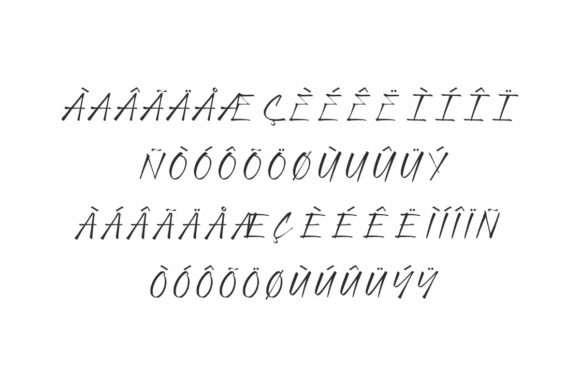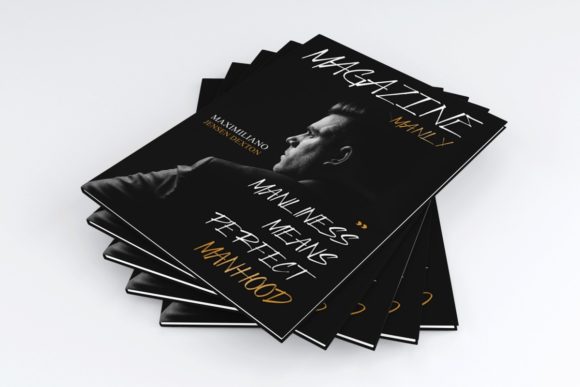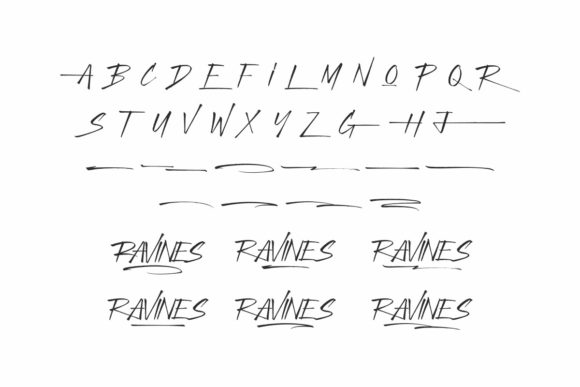
Introduction to Ravines Font
Have you ever stared at a blank design canvas, trying to come up with the perfect font to make your creative project pop? You search for hours, scrolling through design resources, and finally, you stumble upon it – the perfect font to elevate your design to the next level.
That’s exactly what happened when I discovered the Ravines Font. This unique, brushed display font is like a breath of fresh air for designers, offering a rough edge effect that’s sure to grab attention. Whether you’re working on a high-quality advertisement, packaging, or product promotion, Ravines Font is the perfect design tool to make your project shine.
With its PUA encoded glyphs and swashes, accessing all the font’s features is a breeze, allowing you to create stunning titles, headlines, and more with ease. And the best part? You can download it for free, making it an invaluable resource for any designer looking to take their creative projects to the next level.
Key Features of Ravines Font
- High-quality design resource for creative projects, featuring a unique, hand-drawn style.
- Designed to add a touch of elegance and sophistication to any creative project, including logos, branding materials, and more.
- Its unique, hand-drawn style makes it an excellent choice for designers looking to add a personal touch to their work.
Honest Review: Ravines Font
I recently had the chance to use the Ravines Font for a creative project, and I must say it was a great addition. As a designer, I appreciate high-quality design resources like this one.
- What works well: ✨ The font’s unique, hand-drawn feel adds a touch of elegance to any design. The transparent background makes it easy to use on a variety of backgrounds.
- What works well: ✨ The font is highly customizable, allowing me to adjust the size and style to fit my design needs.
One limitation I found was that the font can be a bit difficult to read at smaller sizes. ⚠️ This may be a concern for designers who plan to use the font for large blocks of text.
Overall, I was impressed with the Ravines Font and would recommend it as a free download for designers looking for a unique, high-quality font. It’s a great resource to have in your toolkit, especially for creative projects where a touch of personality is needed.
Ravines Font
Introduction to Ravines Font
Ravines Font is a high-quality design resource perfect for creative projects. It offers a unique and stylish look, making it ideal for various applications.
Common Use Cases for Ravines Font
Ravines Font is suitable for various applications, including:
1. Brochures and flyers.
2. Business cards and letterheads.
3. Social media graphics and posts.